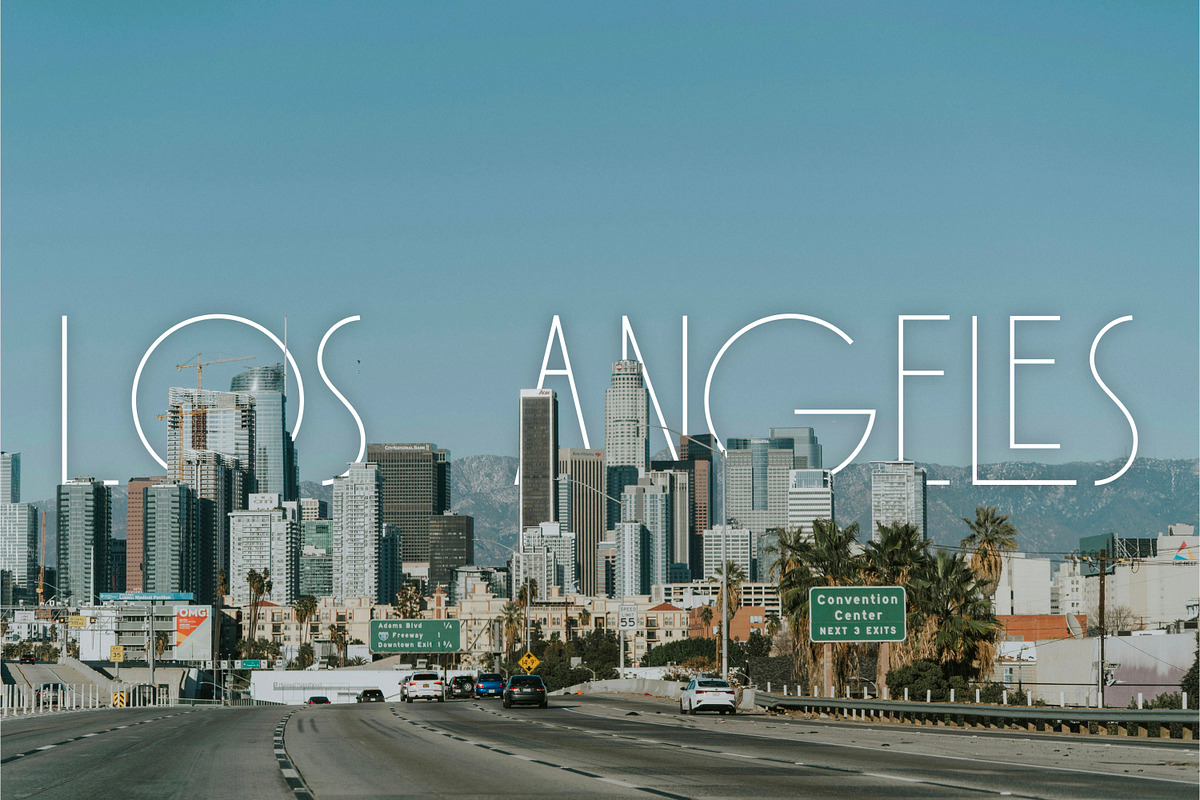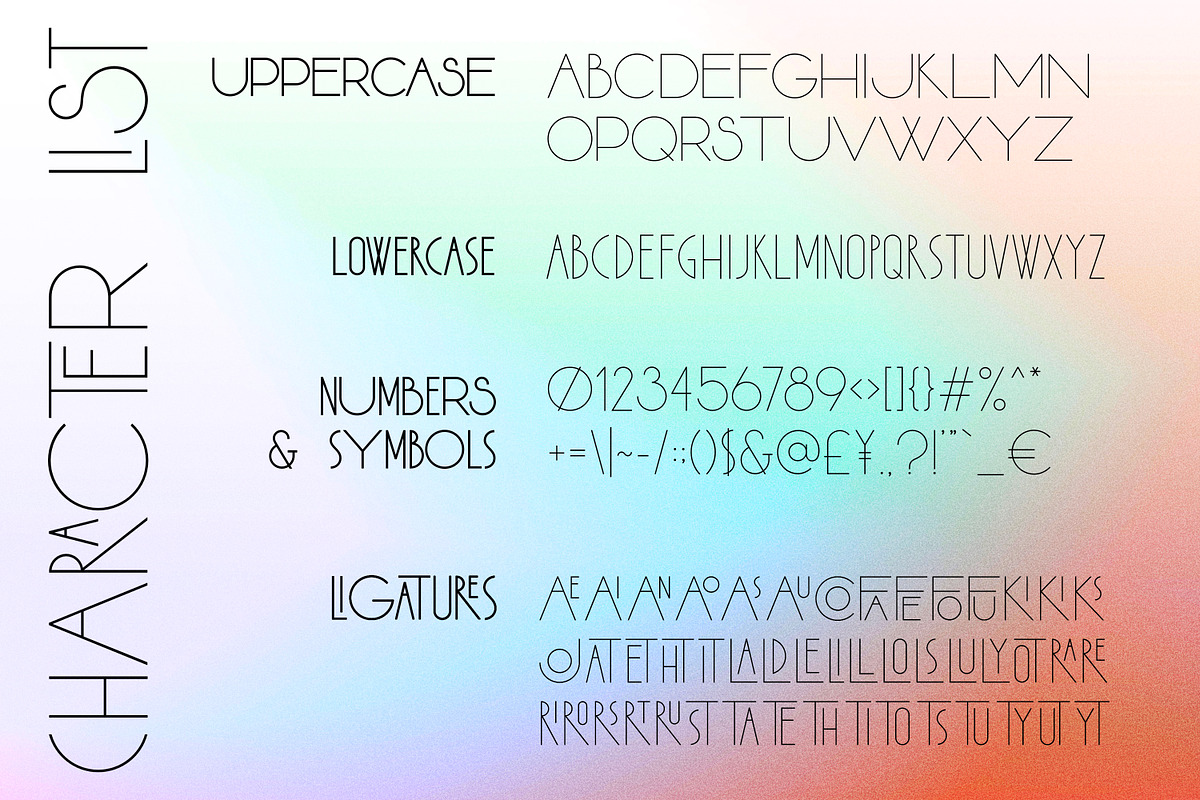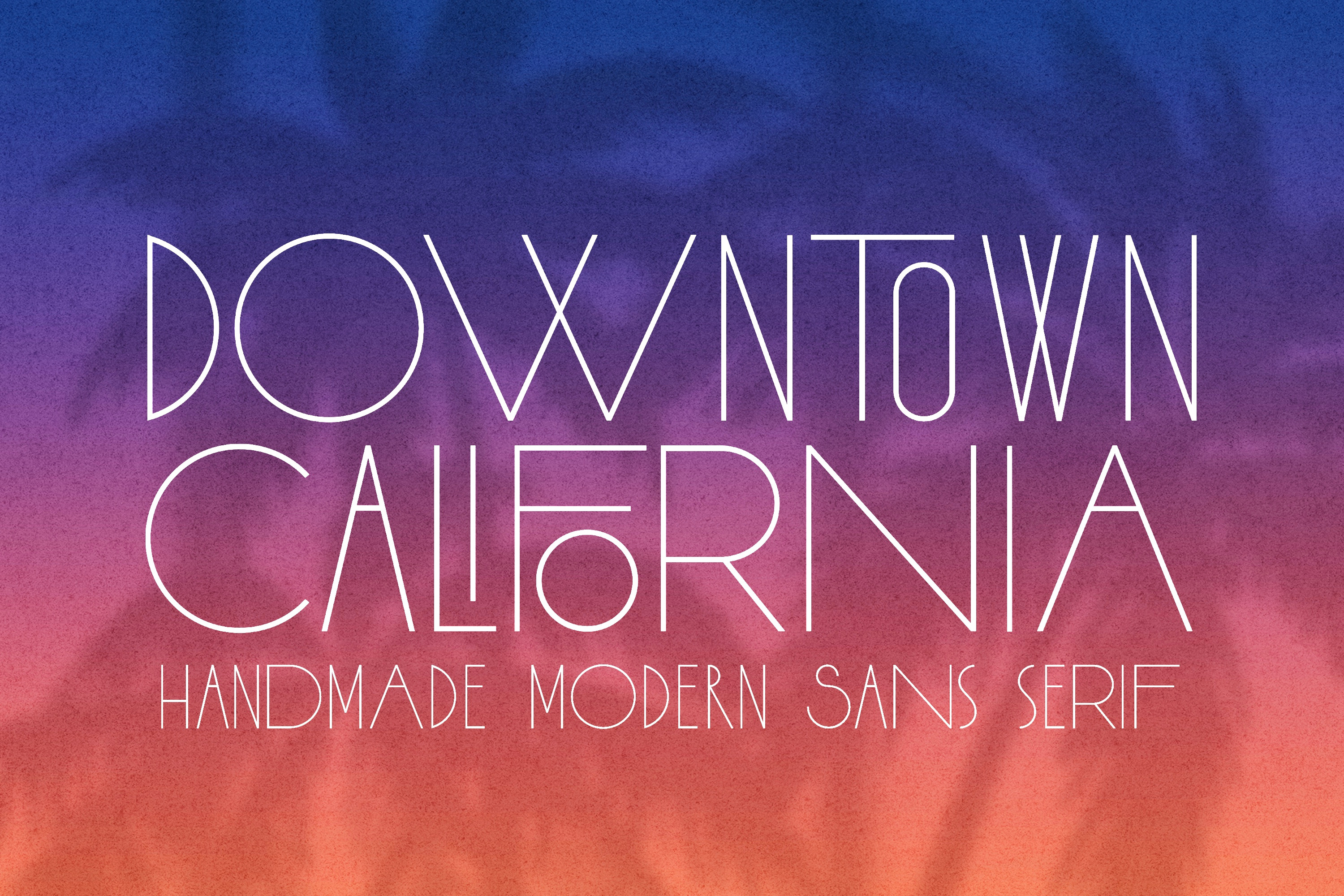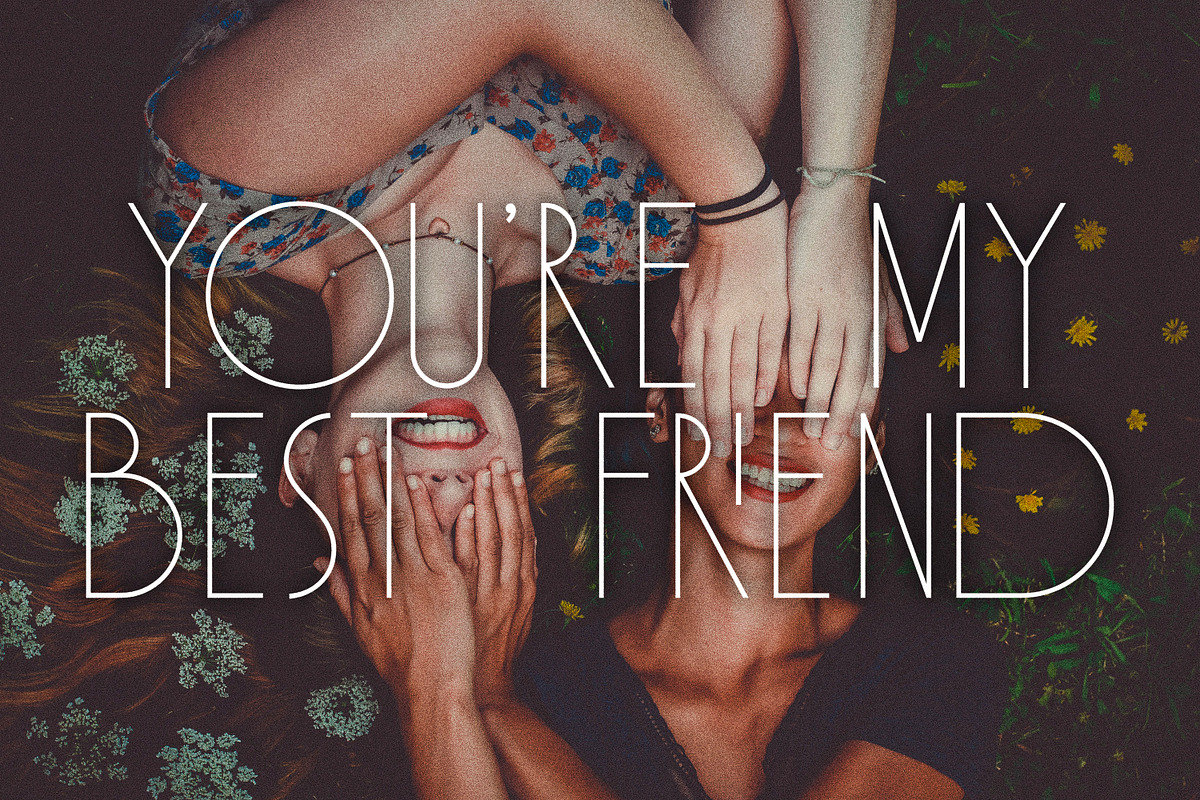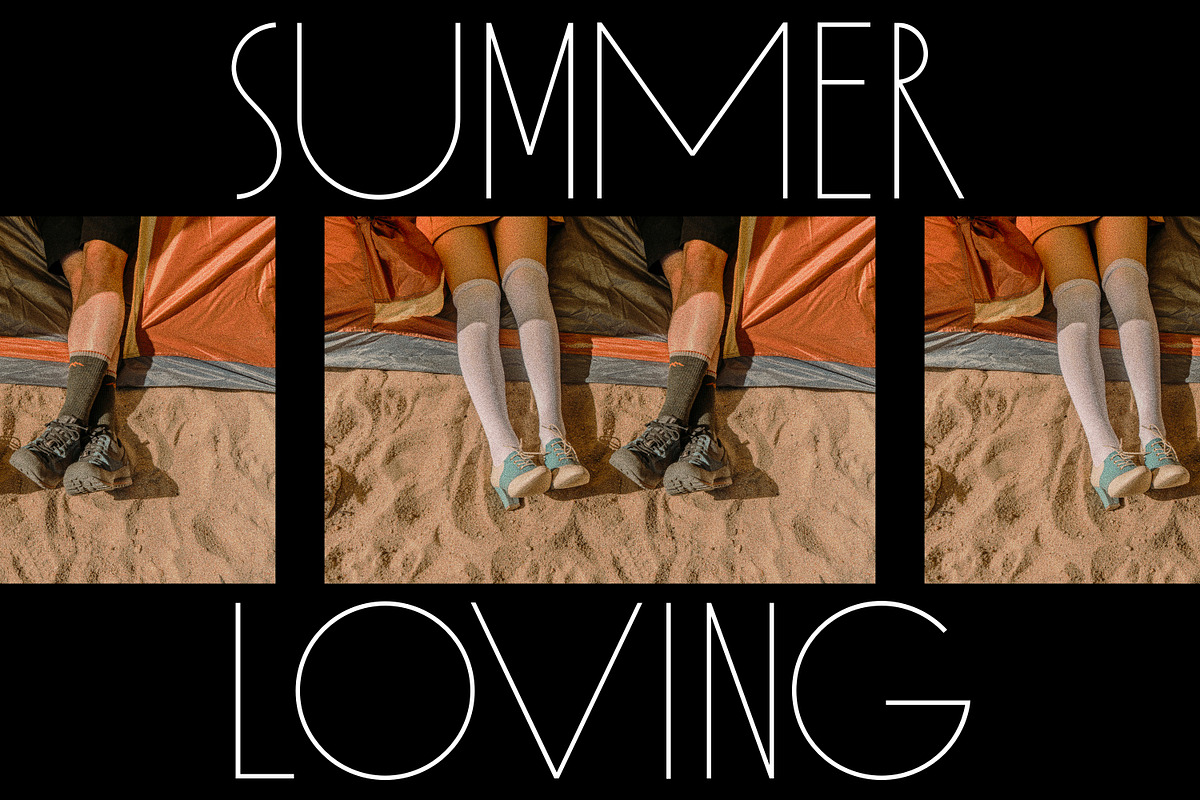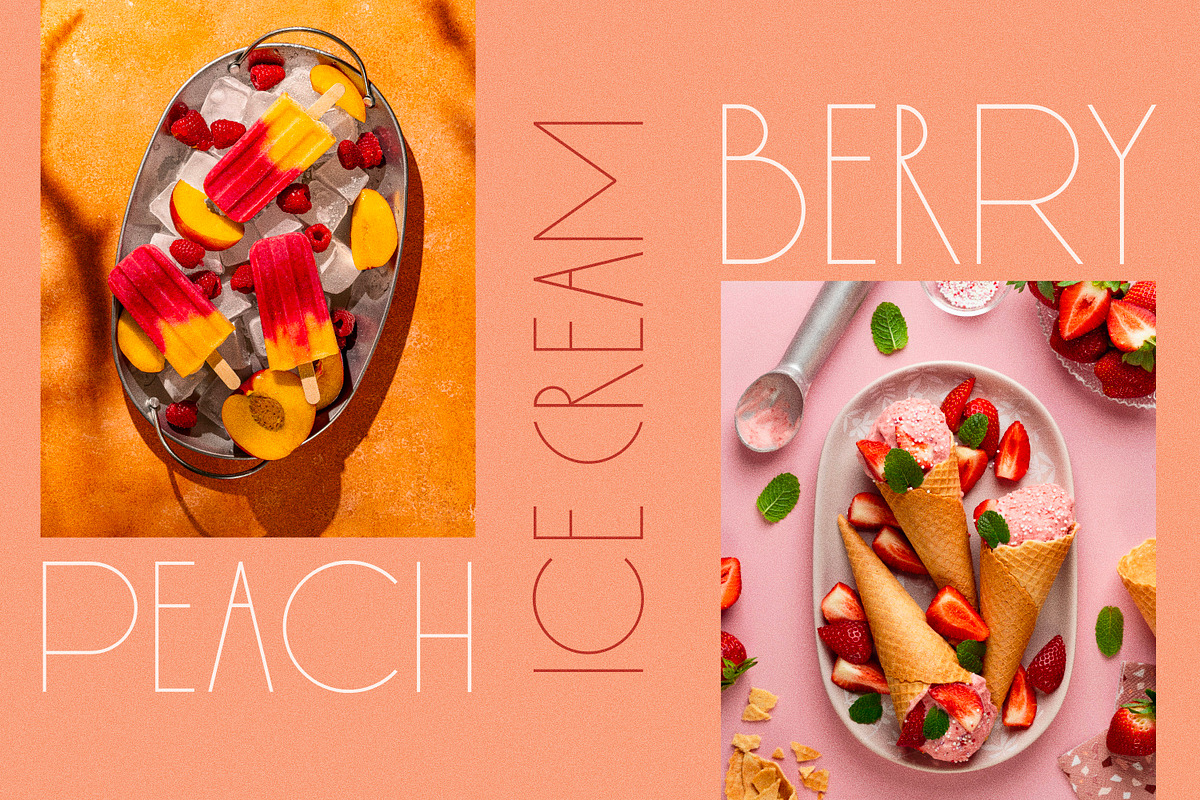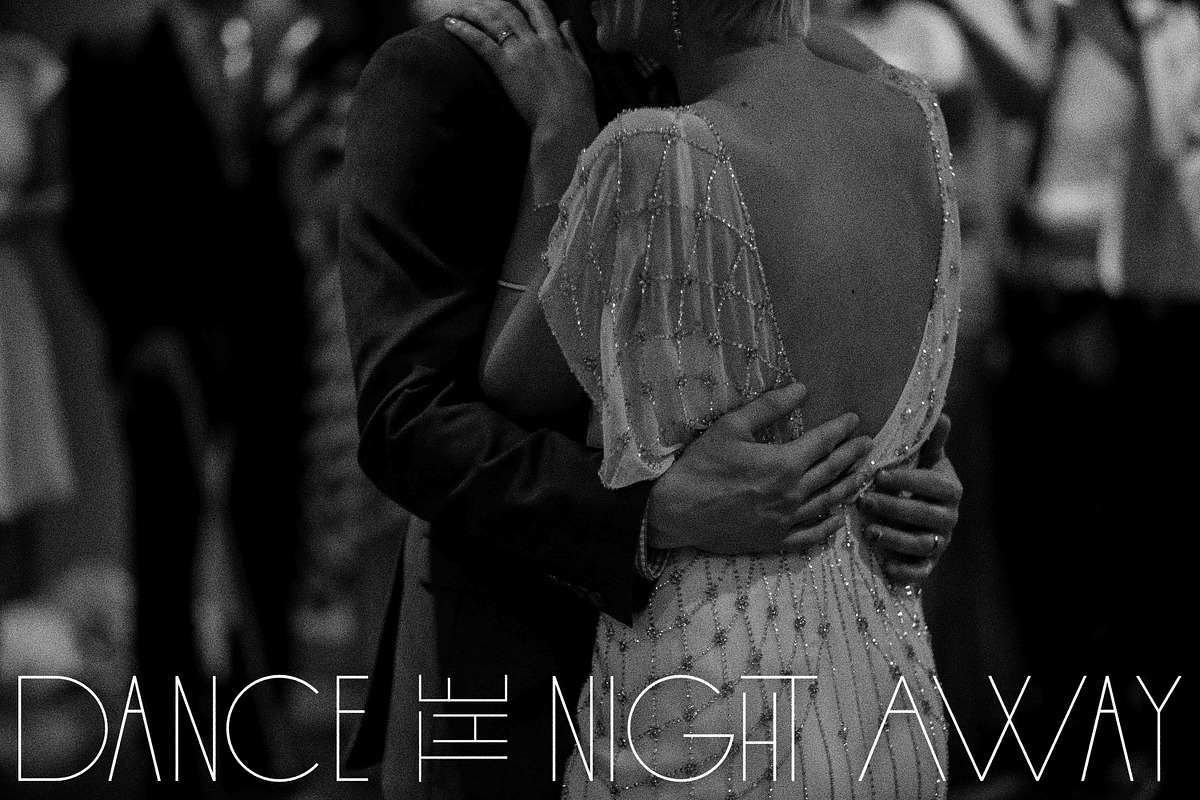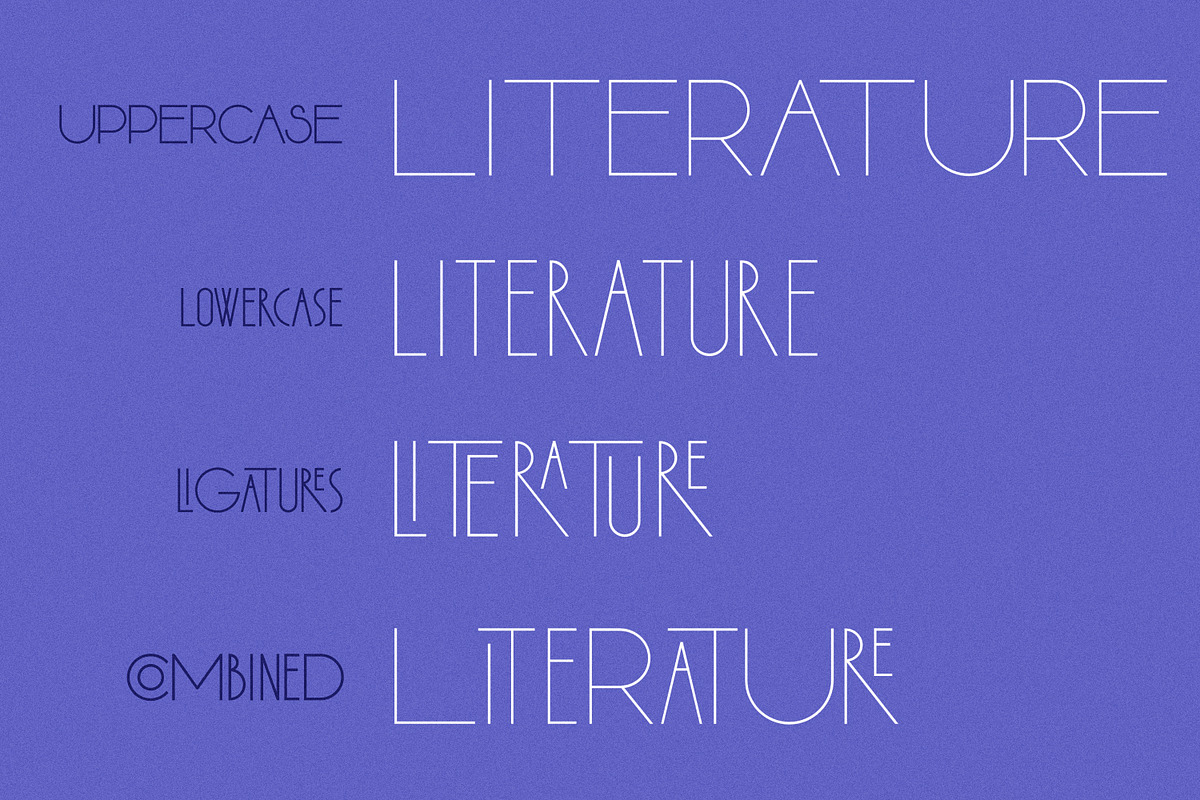
Downtown California Deco Font
Introducing the Downtown California font! This is a hand drawn, modern serif style, perfect for any of your designs, posters, mockups, stickers, t-shirts, merchandise, quotes, etc.